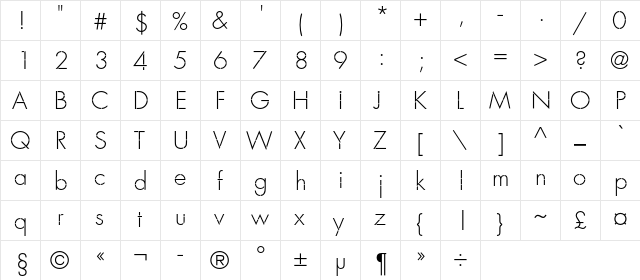
FavoritTraf-Light Regular
Design Context for FavoritTraf-Light Typeface
FavoritTraf-Light offers clean, dependable letterforms without strong stylistic allegiance, making it a practical choice for designers who need flexibility. The delicate stroke weight brings airiness and refinement to layouts.